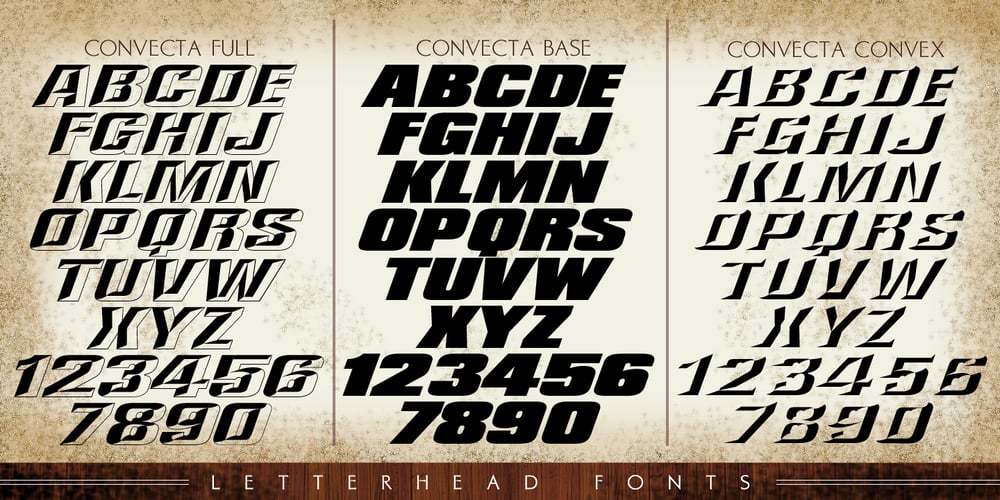
LHF Convecta Font Family was designed by Chuck Davis and published by Letterhead Fonts. LHF Convecta contains 4 styles and family package options. This unique font family allows you to create prismatic-style easily without any editing of the font itself. Allowing you to cut layers separately from two different colors of vinyl. Also very useful in raster programs such as Photoshop. Comes with 3 fonts Convecta Base, Convecta Convex and Convecta Full.